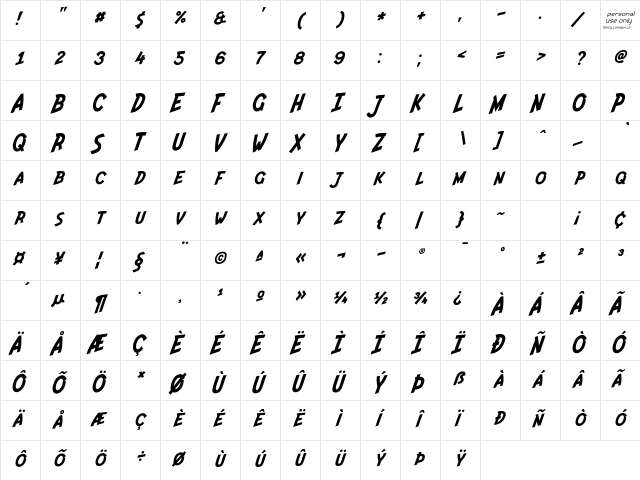
Indiana Jonas Italic
Design Context for Indiana Jonas Typeface
Indiana Jonas offers clean, dependable letterforms without strong stylistic allegiance, making it a practical choice for designers who need flexibility. Its italic angle brings a sense of urgency and motion to the letterforms.
Pro Tip: Use Indiana Jonas for emphasis, pull quotes, and subheadings where its slanted energy can add rhythm to the layout.